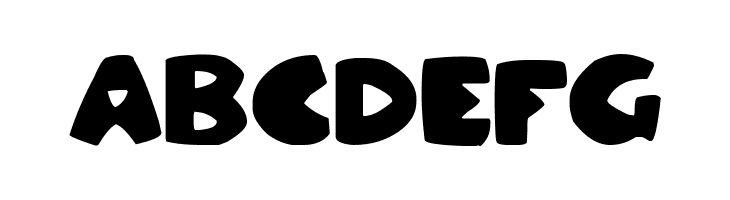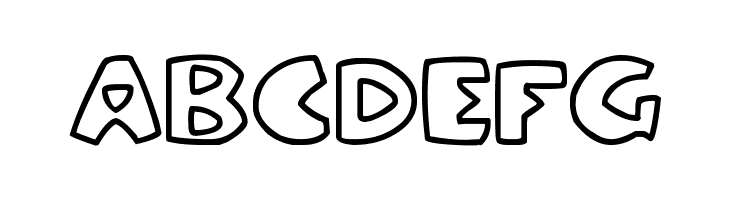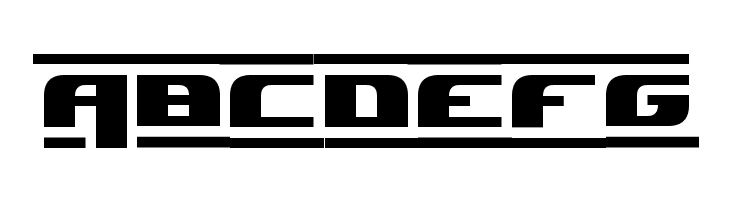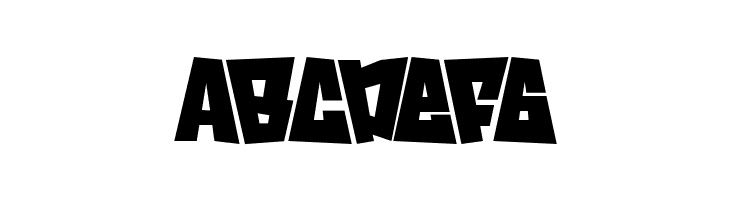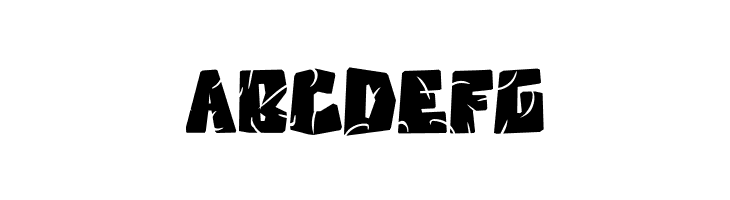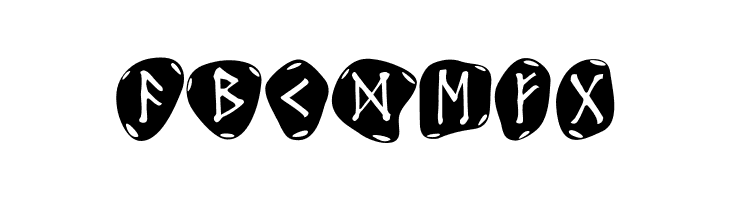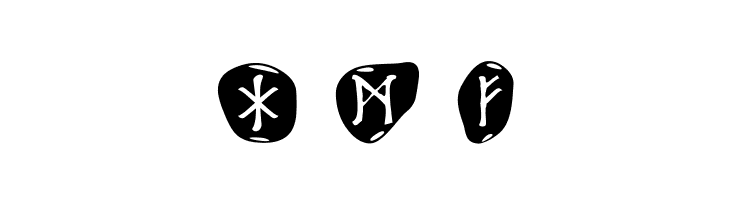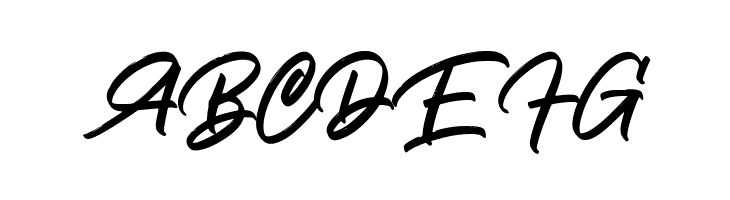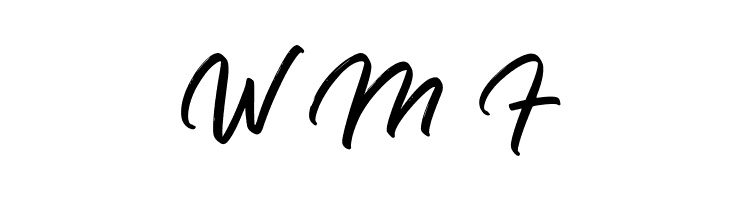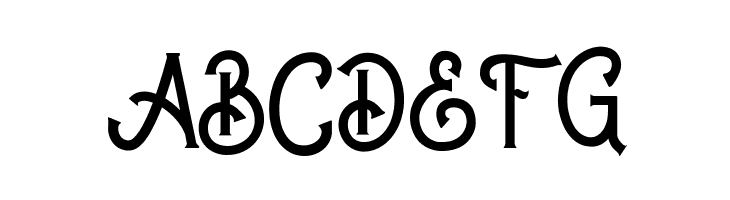
A classic serif typeface with elegant curves and moderate contrast.
A bold, geometric font with an industrial, stencil-like design.
An elegant script font with flowing, interconnected letters and decorative flair.
An expressive, calligraphic font with bold, sweeping strokes.
A bold, decorative font with whimsical curves and loops.
A bold, cursive font with a lively and energetic style.
A bold, playful font with thick, rounded outlines and a cartoonish style.
A bold, playful font with rounded, irregular characters and tight spacing.
A bold, decorative font with a vintage postage stamp style.
A bold, rugged font with a hand-chiseled, ancient stone appearance.
A rugged, textured font with a primitive, stone-carved appearance.
A bold, textured font with an organic, stone-like appearance.
A bold, distressed font with a rugged, stone-like appearance.
A bold, distressed font with a vintage collegiate style and textured appearance.
Bold, decorative font with a bubbly, interconnected design.
A bold, pixelated font with a rugged, stone-like appearance.
A fluid and elegant script font with thin, continuous strokes.
A bold, geometric font with a playful, stone-carved aesthetic.
A bold, angular font with a geometric and modern design.
A rugged, hand-drawn font with an ancient, carved appearance.
A bold, angular, decorative font with a three-dimensional outline effect.
A geometric, stone-like font with bold, angular lines and a three-dimensional effect.
A runic-inspired font with characters carved into stone-like shapes.
A lively handwritten font with dynamic strokes and a playful, informal style.
A bold, distressed display font with a stone-like, cracked texture.
A playful, textured font with bold, rounded characters and a stone-like appearance.
A bold, geometric font with sharp angles and a modern, industrial feel.
A bold, rugged font with a stone-carved appearance.
A bold, futuristic font with geometric and angular design elements.